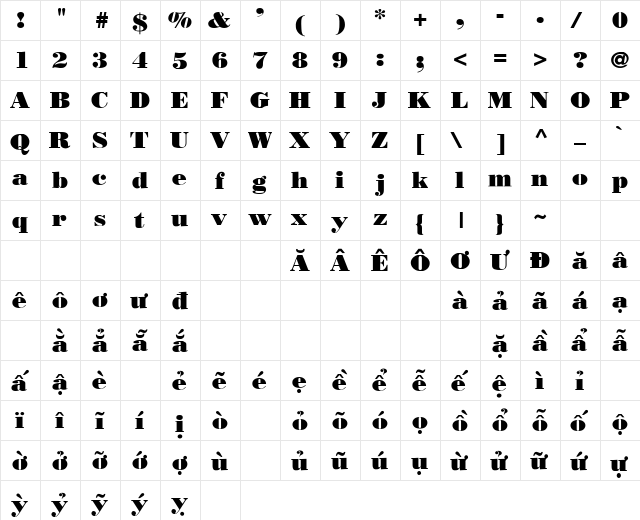
.VnBodoni Regular
Design Context for .VnBodoni Typeface
.VnBodoni takes a measured approach to typography — its balanced proportions and neutral character make it a reliable workhorse for both digital and print work.